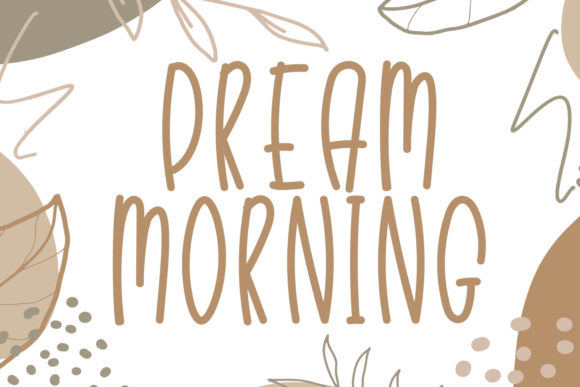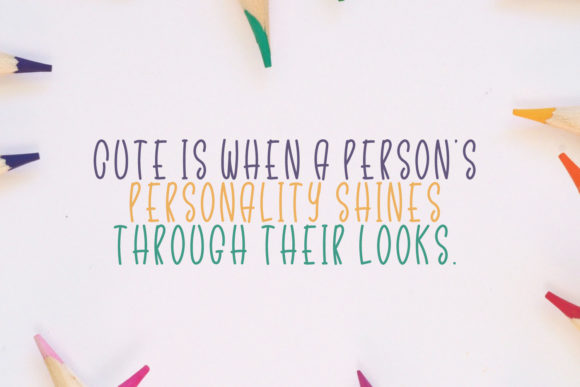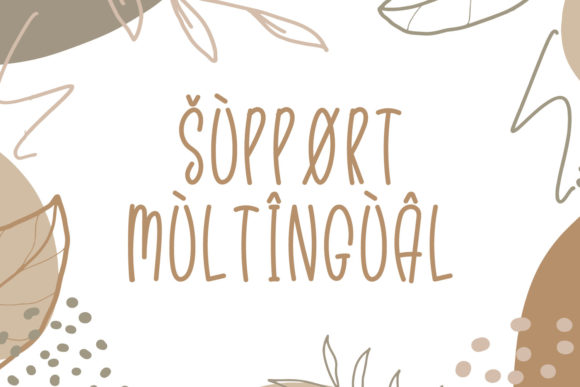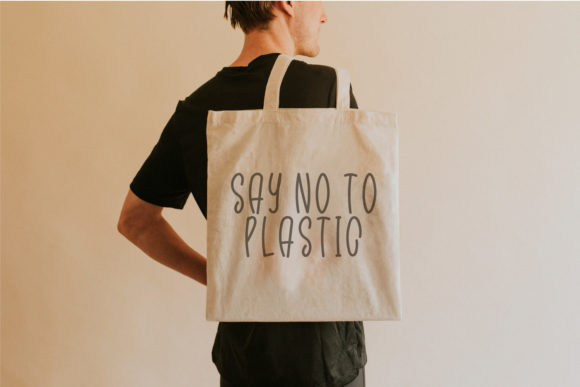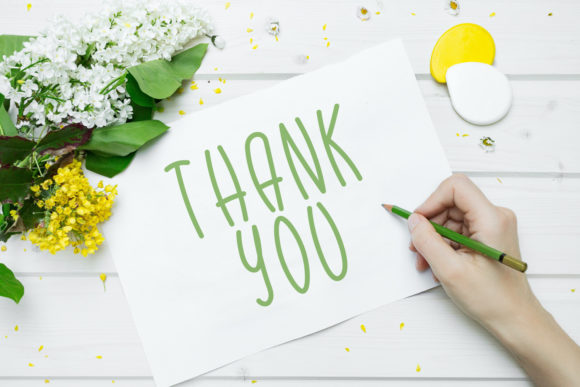
Dream Morning Font
About Dream Morning Font
Dream Morning is a cute, quirky and simple handwritten font. It can easily be matched to an incredibly large set of projects, so add it to your creative ideas and notice how it makes them stand out!